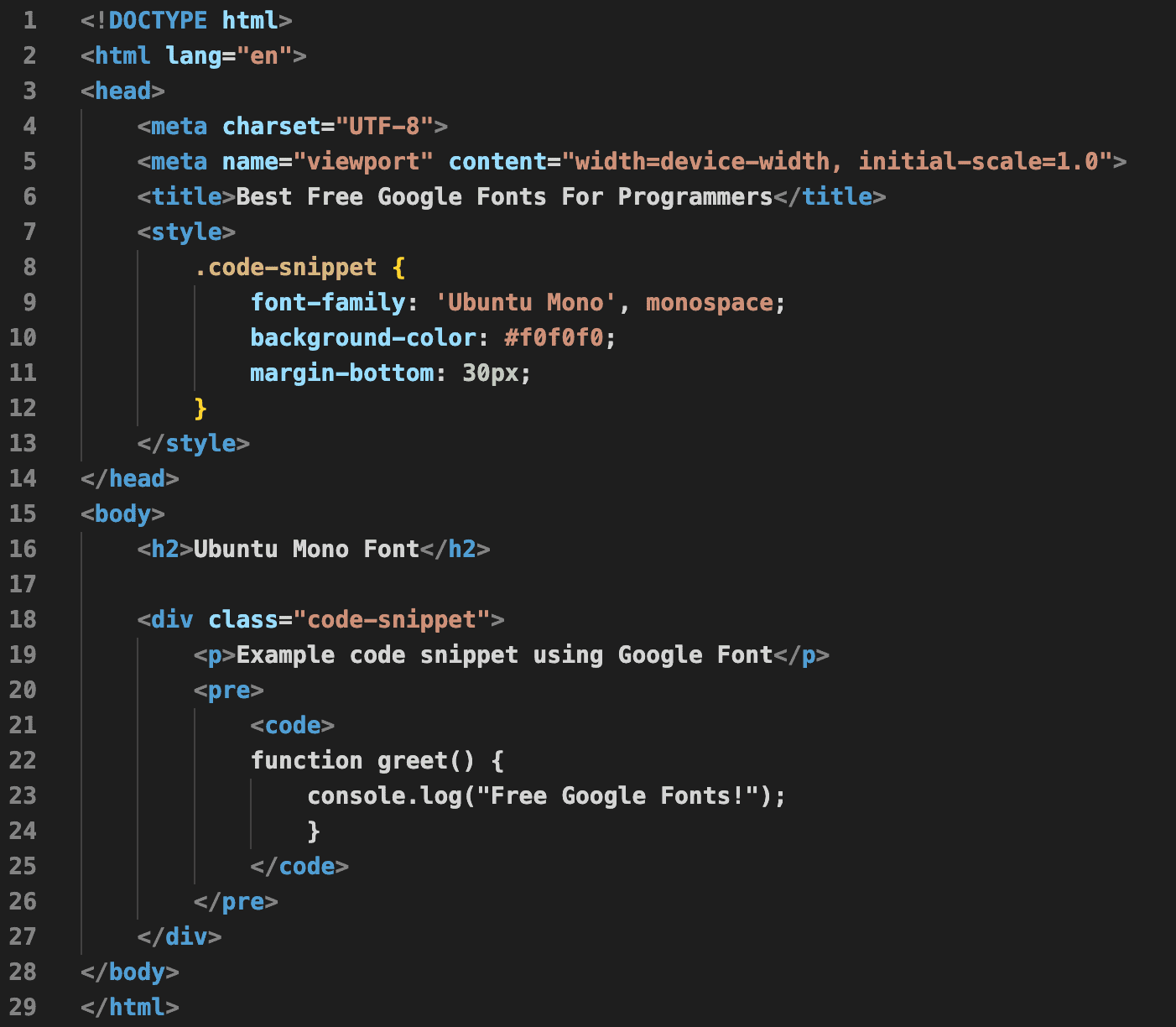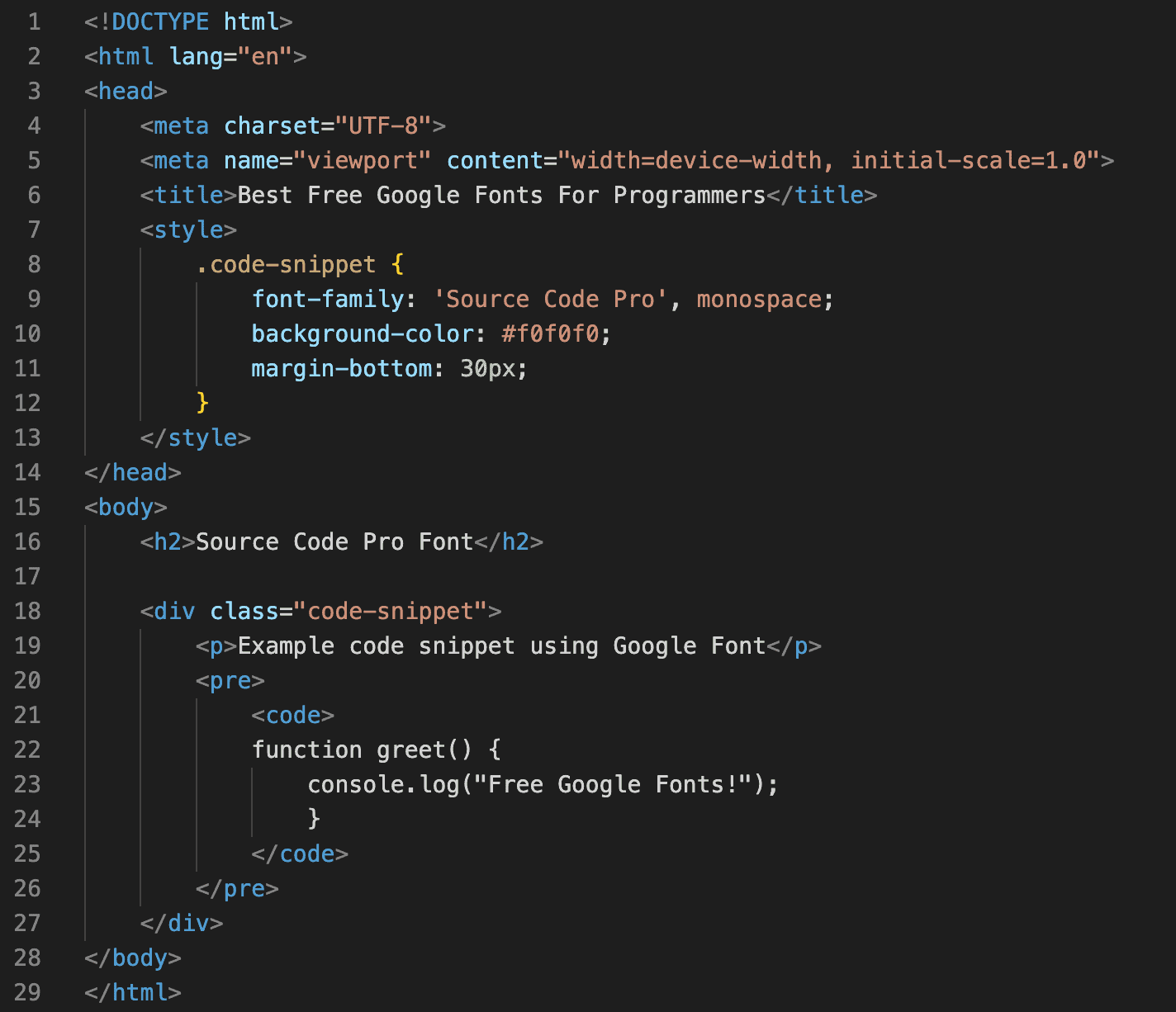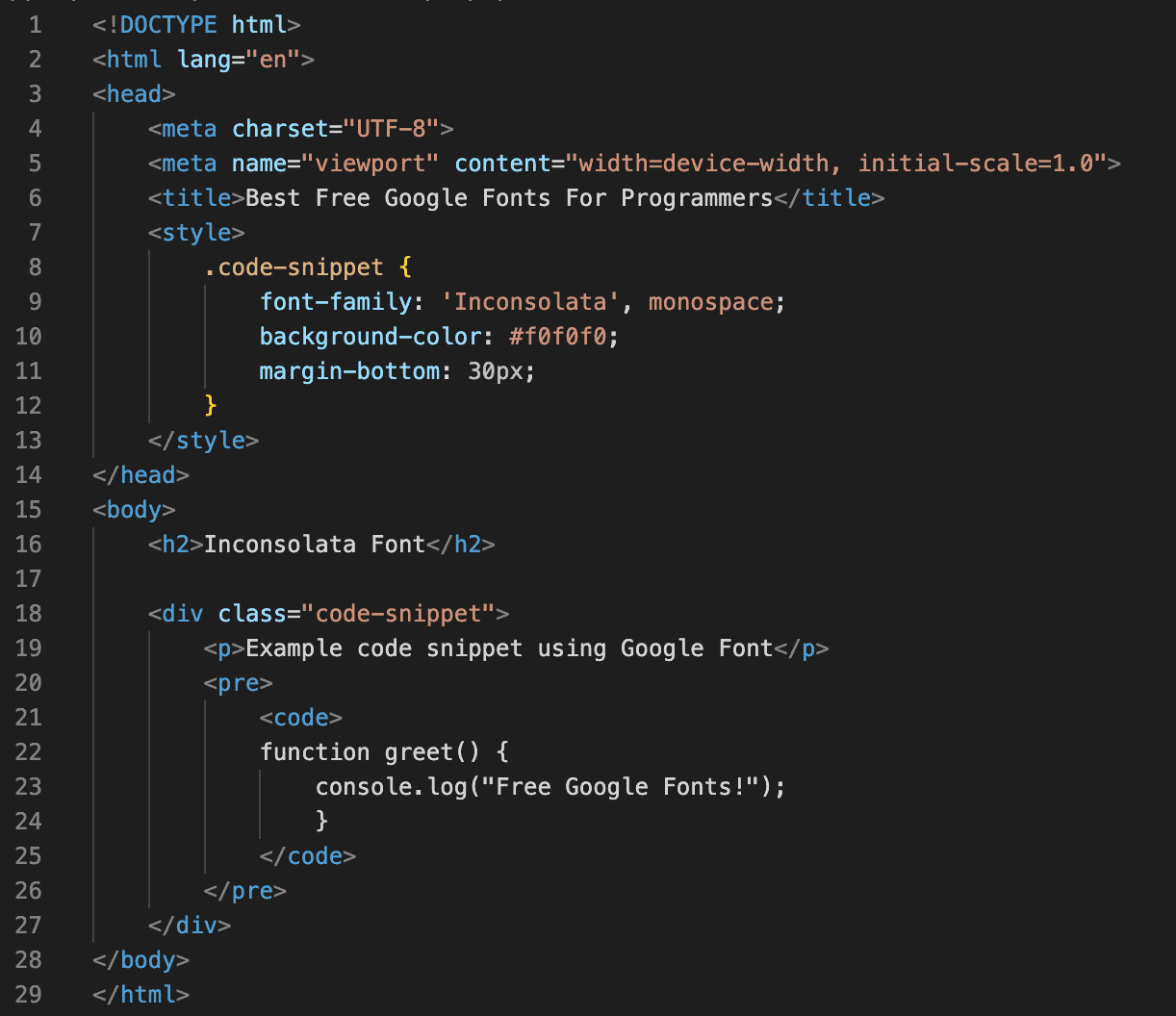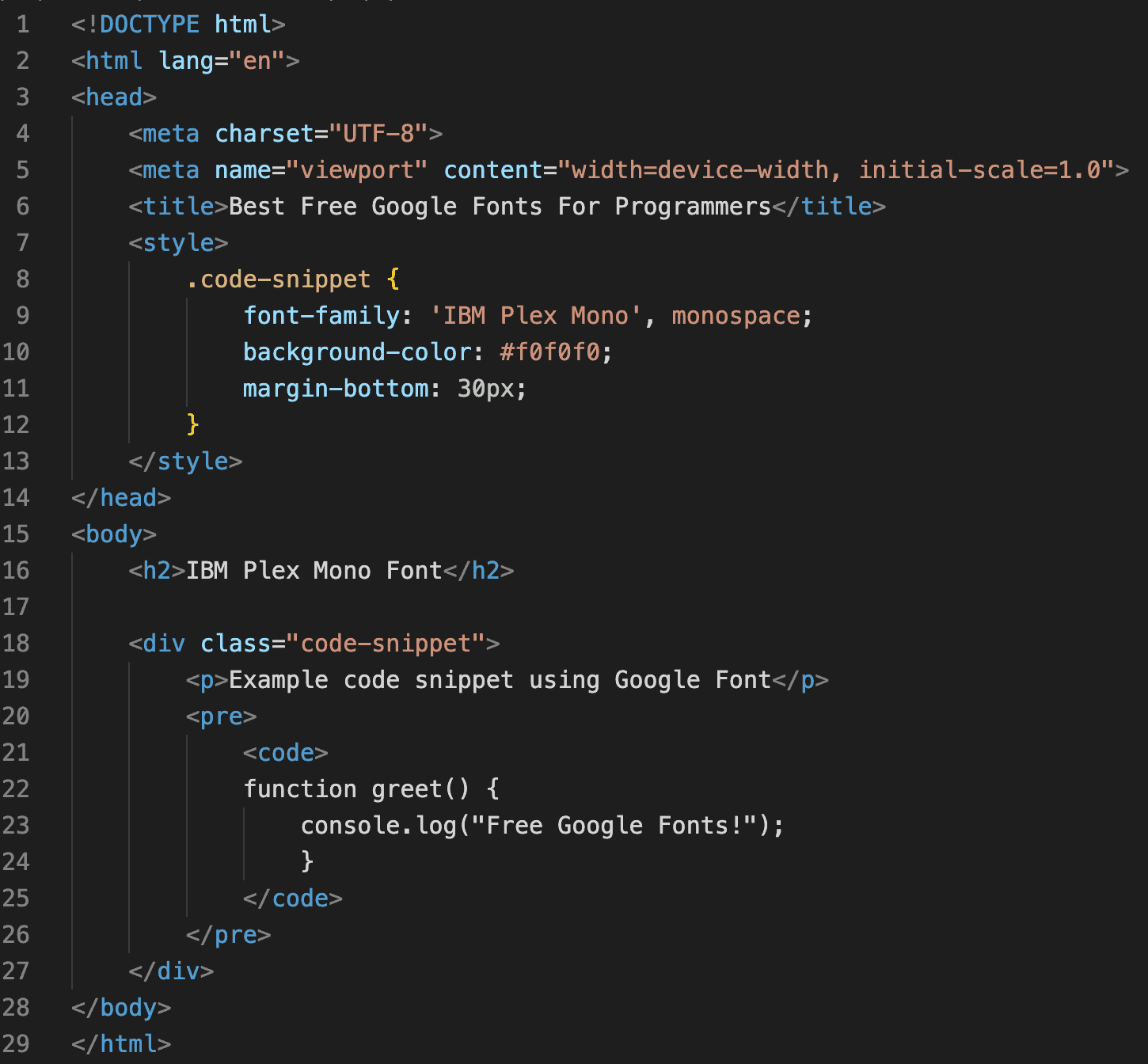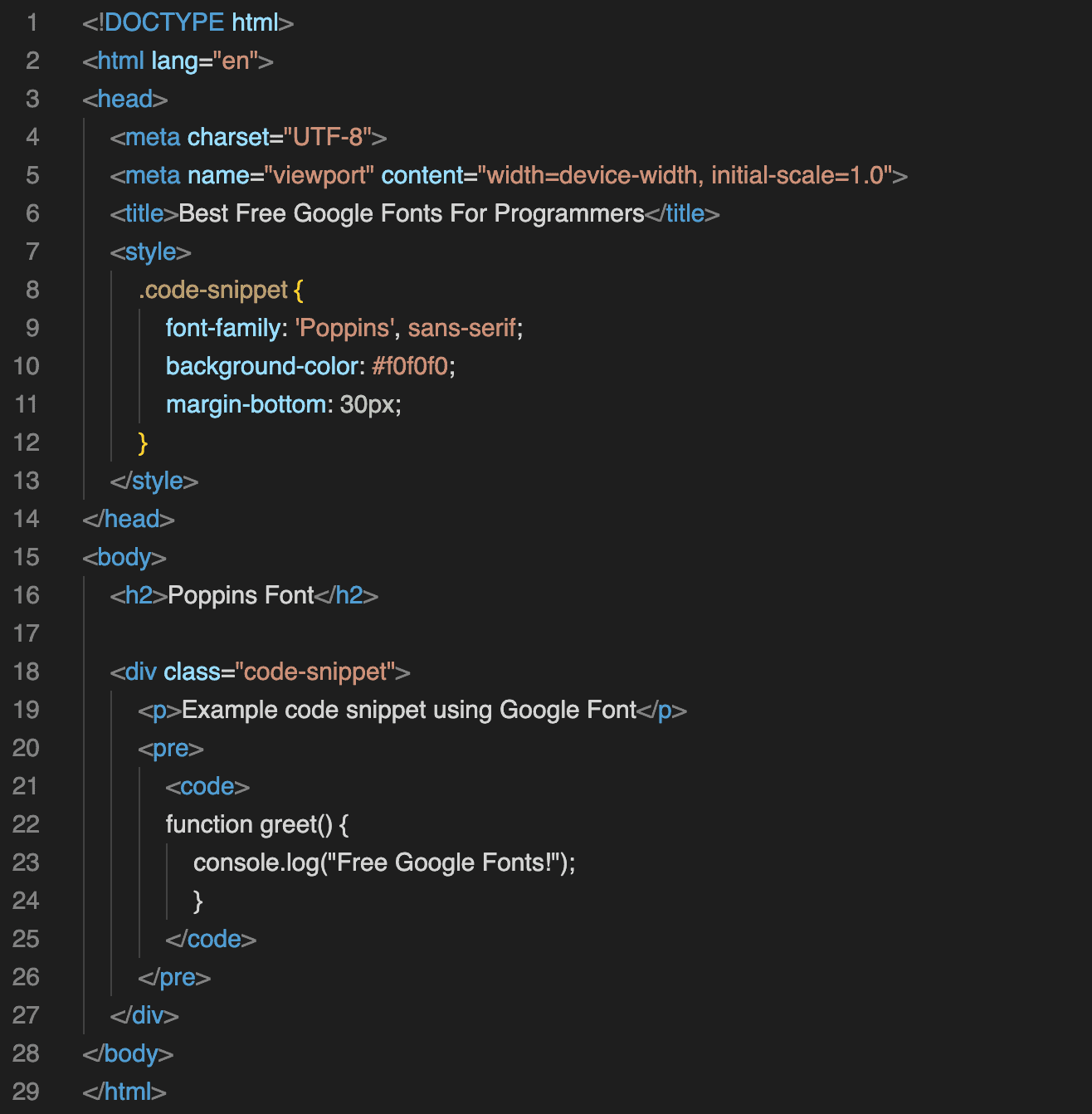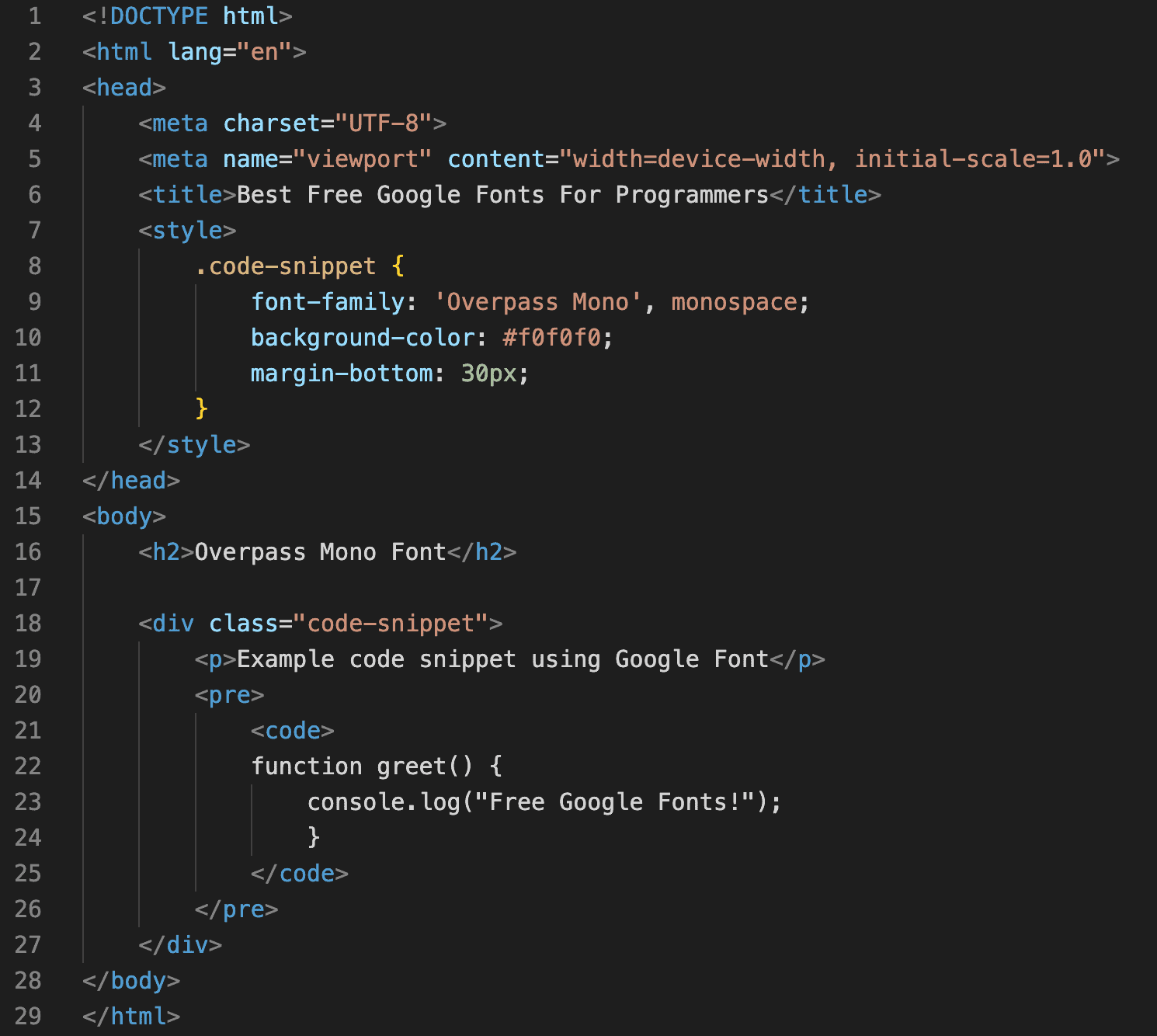
Top 10 Free Google Fonts for Programmers
As a programmer, spending long hours staring at lines of code can lead to eye strain, headaches, and reduced productivity, especially when using fonts that make it hard to distinguish between similar characters. This makes coding less enjoyable and increases the possibility of errors, as interpreting characters like ‘1’ and ‘l’ or ‘0’ and ‘O’ can become a frustrating task.
Choosing the right programming font can significantly improve your coding experience. Google Fonts, known for its vast collection of free and open-source fonts. It has lots of different font styles to choose from, so you can find the perfect font for whatever you’re working on.
In this article, we will explore the best free Google fonts available for coding, highlighting their features and benefits to help you find the perfect fit for your coding needs.
Key Takeaways
- Understand why choosing the right font is crucial for coding comfort and accuracy.
- Discover the top 10 free Google Fonts that are ideal for programmers.
- Learn how each font improves readability, reduces eye strain, and enhances code clarity.
- Explore fonts with monospacing, ligature support, and balanced design.
- Find the perfect coding font that fits your workflow and style.
Why Choosing the Right Coding Font Matters
Here are the main reasons why picking the right coding font is essential. You might consider changing your programming font for several reasons, such as.
- Improves Readability: Some fonts are easier to read because they make it clear to see the differences between similar characters, like ‘0’ and ‘O’ or ‘1’ and ‘l.’ This helps prevent mistakes and makes reading code easier, even at smaller sizes.
- Reduces Eye Strain: The right font helps minimize eye fatigue during long coding sessions by providing clear and legible text that’s easy to read.
- Reduces Errors: Using a font that makes it easier to distinguish between different characters and symbols makes you less likely to introduce mistakes into your code.
- Personal Preference: Developers often have their own preferences regarding how coding fonts look, such as whether they prefer serif or sans-serif.
- Enhances Coding Speed: With improved readability, you can scan and understand code more quickly, boosting your overall coding efficiency and productivity.
What are the Best Google Fonts For Developers
We will discuss some of the Google fonts you can use for coding. These fonts are easy to understand and provide a clean way of coding.
1. Roboto
Roboto offers a good balance of a modern aesthetic and a touch of friendliness. This makes it easy on the eyes for long coding sessions. It offers 12 different font styles ranging from thin to bold, providing flexibility in design.
One of the key strengths of Roboto for code is its crisp differentiation between similar characters. Letters like lowercase “L” and capital “I” or numerals “1” and “0” can sometimes appear blurry in other fonts. The font’s size also gives its letters a more natural look, making reading text in Roboto comfortable and easy on the eyes.
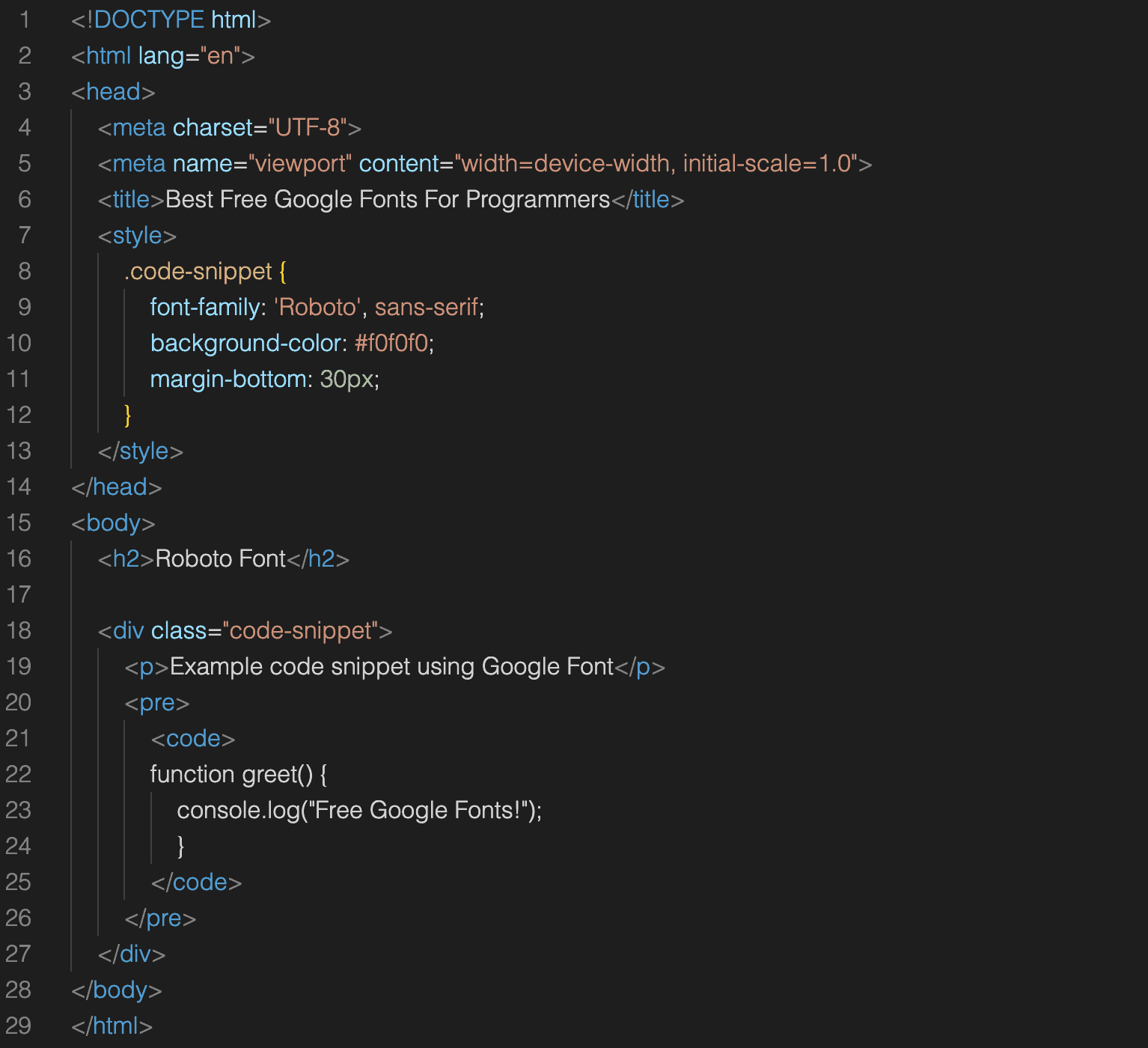
2. Fira Code
Fira Code Font is highly regarded as one of the best fonts for programming. These fonts are monospaced, meaning each character occupies the same amount of horizontal space, ensuring neat alignment in your code.
One of the main reasons for Fira Code’s popularity is its extensive support for ligatures, which combine certain character sequences like “..” or “//” into single symbols. This feature improves the spacing and readability of code without altering its underlying structure.
Fira Code offers a variety of weights—Light, Regular, Medium, SemiBold, and Bold—allowing developers to choose the style that best suits their preferences and coding environment.
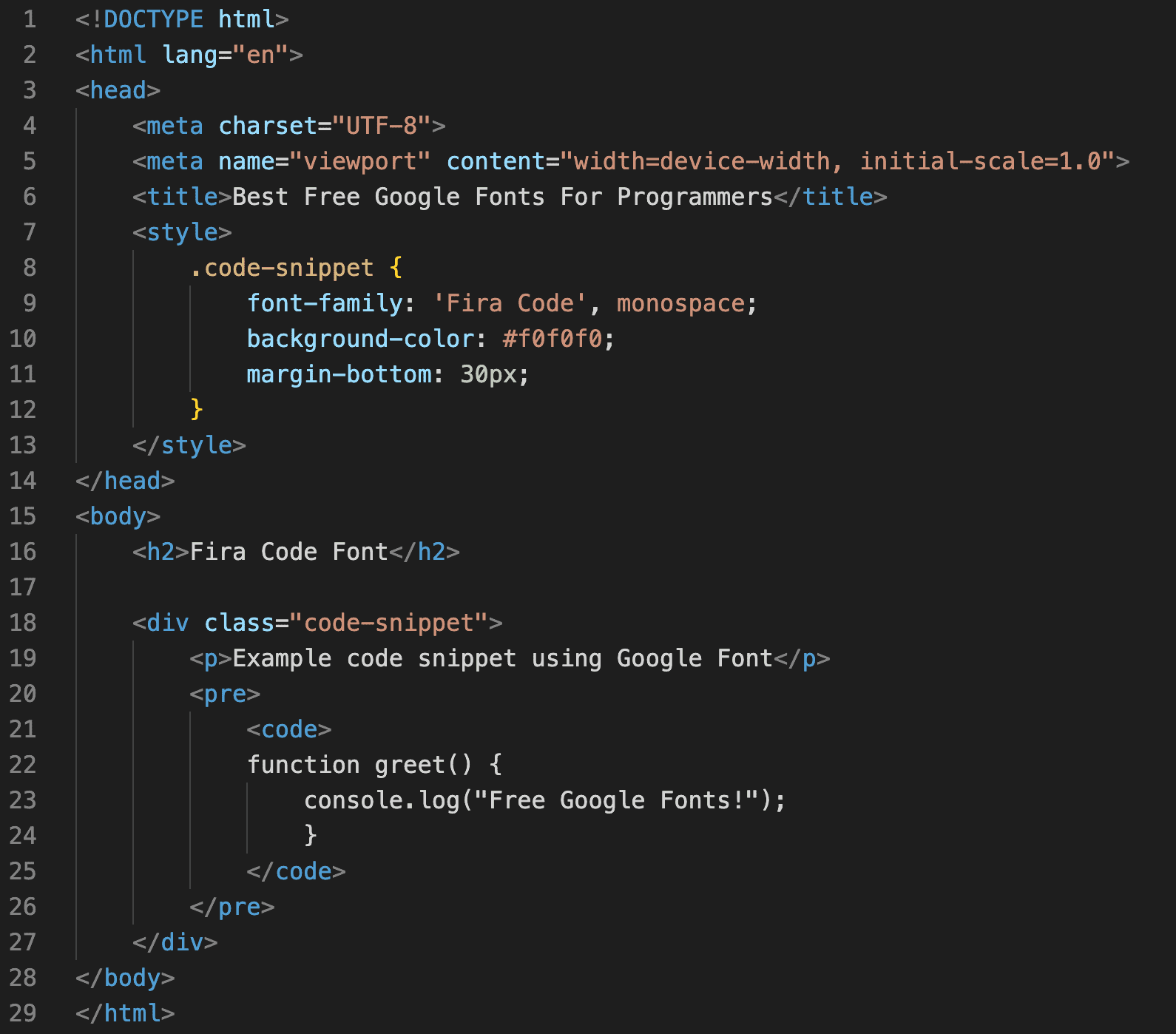
3. Lato
Lato is a sans-serif typeface known for its clarity and versatility. Designed by Lukasz Dziedzic, it offers a modern appearance with balanced proportions, making it ideal for interface design and coding environments. Lato’s clean lines and open forms contribute to its readability, enhancing the overall aesthetic of programming code while maintaining a professional look.
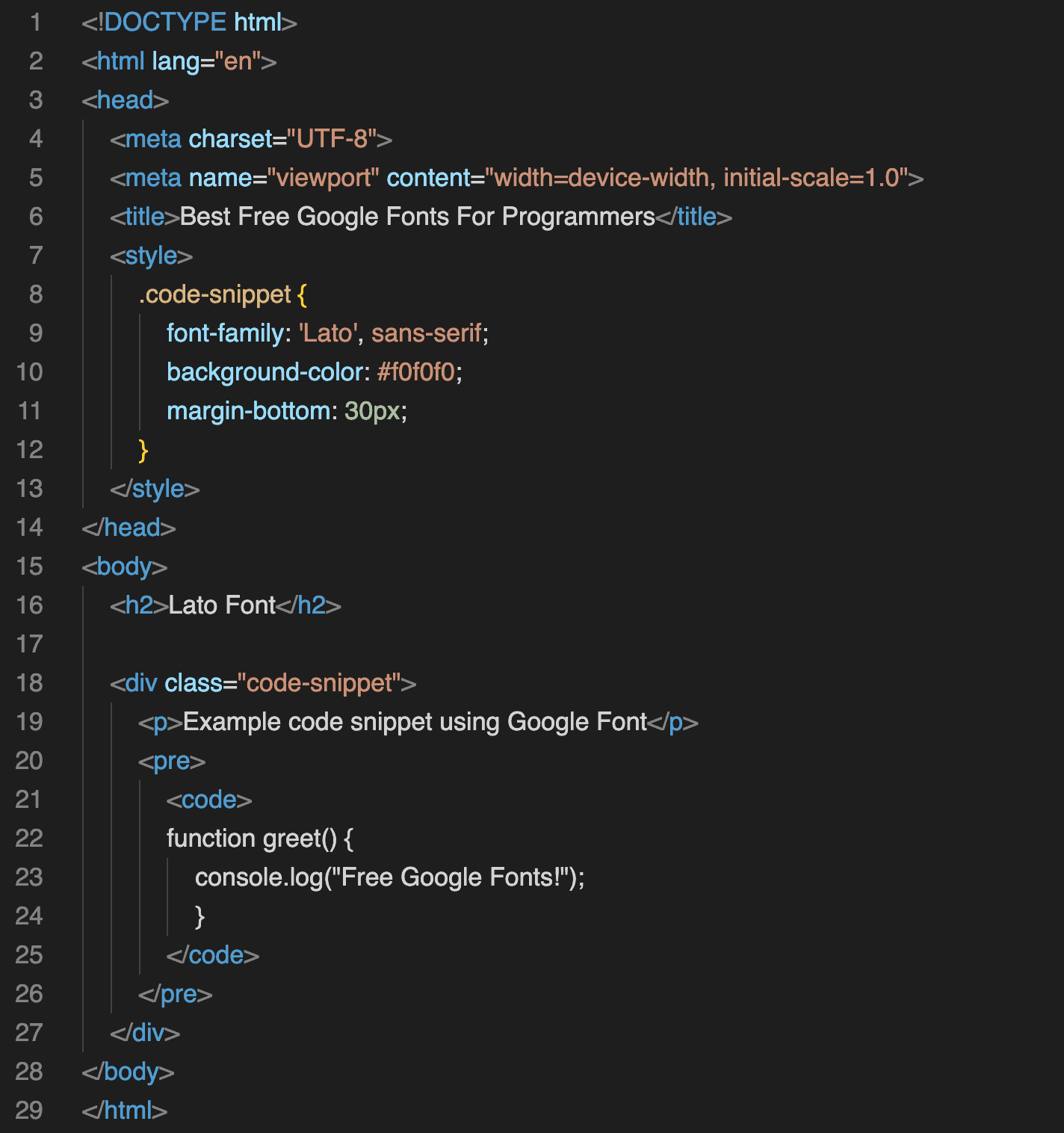
4. Oswald
Oswald is a modern sans-serif typeface that combines elegance with readability, making it ideal for coding. It comes with multiple styles ranging from extra light to bold, ensuring versatility in various coding environments.
Oswald’s clean lines and balanced proportions enhance visual clarity, making code easier to read and maintain during long programming sessions. Its contemporary appearance and wide range of weights make Oswald a popular choice among programmers seeking both style and functionality in their coding font
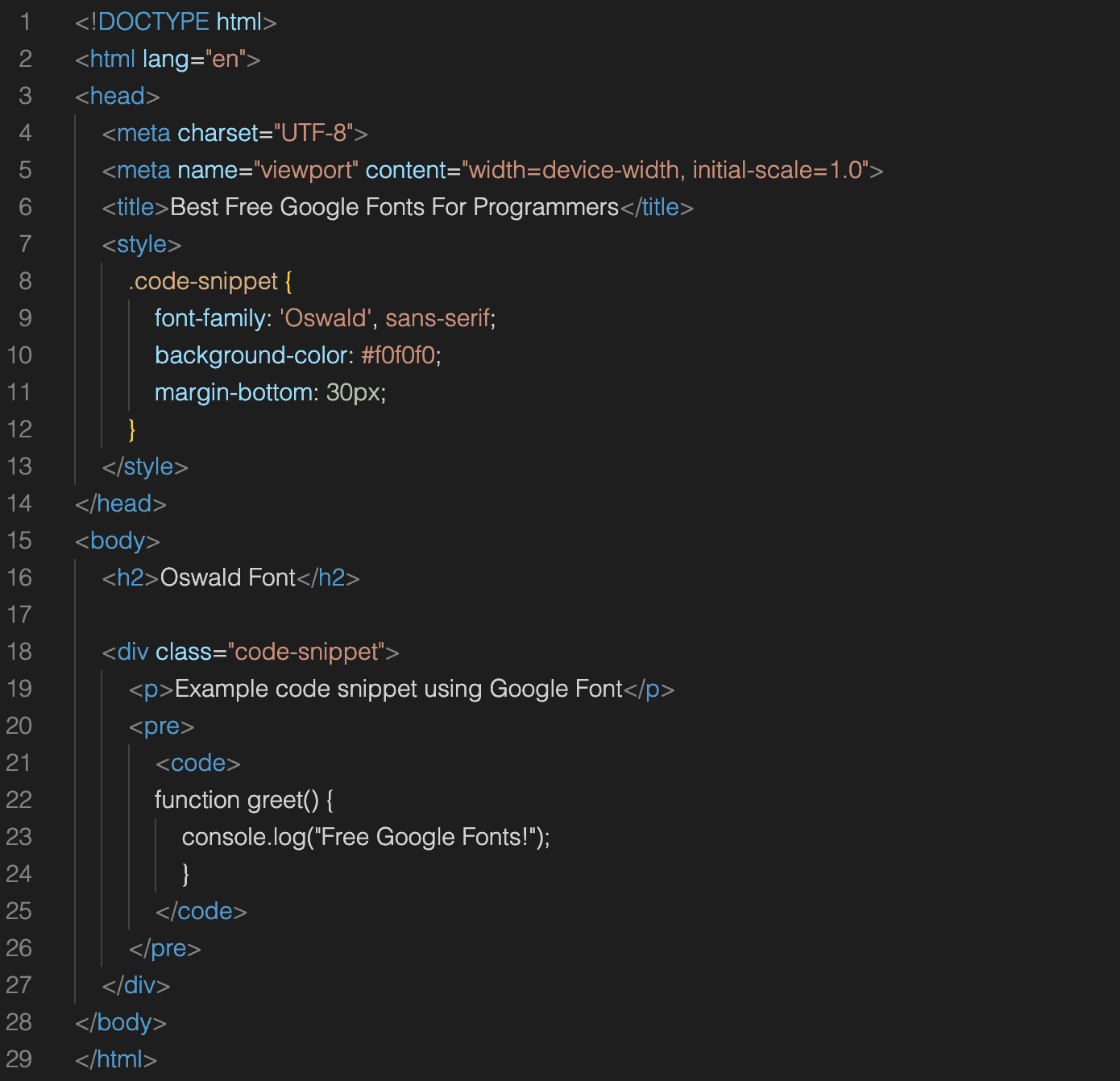
Enhance Your Experience with the Right Coding Font
Choosing the right coding font enhances readability and comfort during coding sessions. Whether you prefer the modern clarity of Oswald, the innovative ligatures of Fira Code, or the professional look of Source Code Pro, the perfect font can make coding more efficient and enjoyable. Experiment with different fonts to find one that suits your style and improves your overall coding experience.